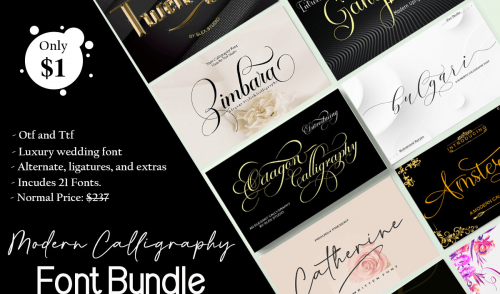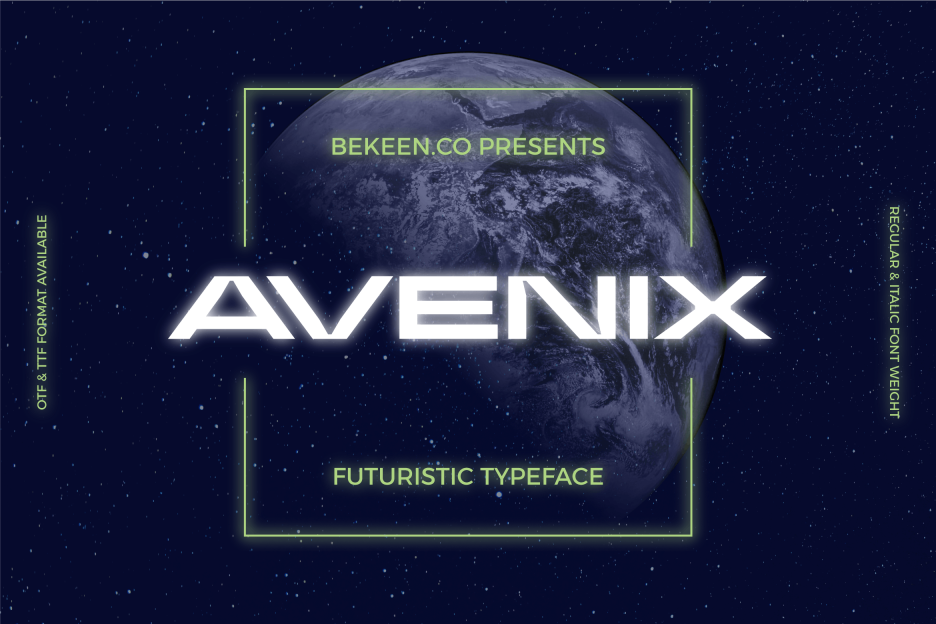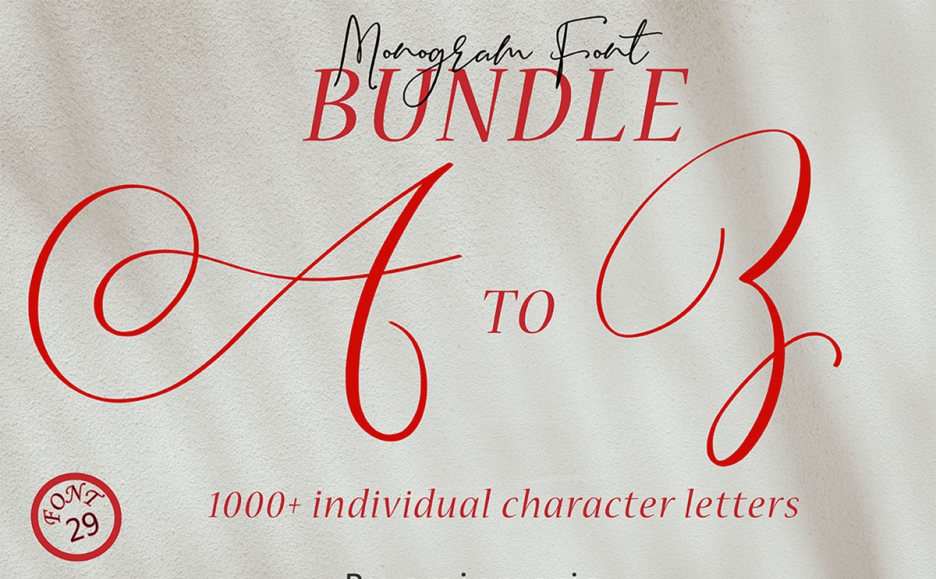
Hey there, creative soul! 👋 Are you ready to level up your typography game? We’ve just uncovered a goldmine of design magic in the BrushesPack Collection Part 154, and trust me, your projects are about to get a serious glow-up. From playful handwritten scripts to ultra-modern futuristic typefaces, this collection of 20 premium font bundles is pure artistic fuel. 🚀
Whether you’re designing wedding invitations, building a bold brand identity, or just want to add that “je ne sais quoi” to your social media graphics, these bundles are your new best friends. So grab a coffee ☕, get comfy, and let’s dive into the typography heaven that’s waiting for you! 🎨
Why Use These Font Bundles?
Typography is the heartbeat of any design. A single font can whisper elegance, shout boldness, or spark pure joy. With these carefully curated bundles, you don’t just get letters — you get the power to tell stories, evoke emotions, and make your work stand out in a noisy digital world. Plus, who doesn’t love having hundreds of professional fonts at their fingertips without breaking the bank? 💸✨
Top 20 Font Bundle Picks from Part 154
Hand-Lettered Font Bundle
If you love that raw, human touch in your designs, this bundle is pure gold. Featuring a mix of script, serif, and sans-serif styles, it’s like having a personal calligrapher in your pocket! 🖋️✨
Handwritten Script Font Bundle Vol
This volume is dripping with personality! Perfect for those “live, laugh, love” posters or cozy branding projects that need a friendly, approachable vibe. Comes in OTF and TTF formats so you can start designing immediately. 📝💕
The Barbie Bundle Font
Ready to channel your inner Barbie? This playful, bold, and elegant typeface is drenched in bubblegum fun! Whether it’s for party invites, girly branding, or just because you want to scream “I’m fabulous!” — this is it. 💖👑
Modern Calligraphy Font Bundle
Calligraphy meets the digital age — and it’s beautiful. These elegant script fonts will make your prints look like they were dipped in ink by a master calligrapher. Perfect for logos, wedding suites, and luxury branding. 🌸✨
My Magic Hand Crafted Font Bundle
This bundle is pure wizardry! 🧙♂️ With a mix of script, sans-serif, and decorative fonts, you’ll feel like a design wizard crafting magic with every letter. It’s quirky, charming, and super versatile.
Grayson Font Pack
Elegant serifs meet modern sans-serifs in this sophisticated pack. Grayson is your go-to for editorial design, high-end branding, and any project that needs a touch of class. 🕶️📰
Mega Script & Handwritten Fonts Bundle
Go big or go home! This mega collection is stuffed with elegant scripts and casual handwritten styles that bring warmth to any project. Say goodbye to boring fonts forever! 🎉🖊️
Lovely Font Bundle – 6 Premium Beauty Fonts
Beauty brands, this one’s for you! With six distinct premium fonts covering script, serif, and sans-serif styles, you’ll have the perfect look for skincare, makeup, or spa branding. 🌿💄
Swashy Font Bundle
Add some flair, darling! This bundle is all about those gorgeous swashes and decorative flourishes that make wedding invitations and certificates look absolutely regal. 👑✨
The Beloved Font Bundle
Every designer needs a bundle they can rely on — this is it. With serifs, sans-serifs, scripts, and display fonts, “Beloved” truly has something for every project. It’s like a warm hug for your typography library! 🤗💕
Mega Fonts Bundle
Size matters, especially when it comes to font variety! This giant bundle packs serif, sans-serif, script, and display fonts all crafted with precision. Endless possibilities, endless creativity. 🌟📚
Nacho-All Bundle
This isn’t just fonts — it’s a full digital asset party! 🎉 With high-res graphics, illustrations, and templates, this bundle is perfect for designers who want everything in one cheesy, delicious package.
Ligature Font Bundle
Ligatures are the secret sauce of beautiful typography, and this bundle is full of them! Whether serif, sans-serif, or script, these fonts connect letters in the most elegant way possible. 🧩🔥
Monograms Bundle From A To Z
Personalization is huge right now, and this A-to-Z monogram collection makes it a breeze! Perfect for custom gifts, wedding decor, and embroidery designs. Classic or playful — you choose! 🎁✂️
The Modern Font Bundle
Clean, contemporary, and ultra-chic. This bundle brings you the best of modern design with elegant serifs and bold sans-serifs. Ideal for tech startups, fashion brands, or minimalist projects. 📱🧊
Super Collection – New Bundle Best Seller – 82 Premium Fonts
Eighty-two premium fonts in one massive bundle?! Yes, please! 😱 This best-seller is an absolute steal, mixing serifs, sans-serifs, scripts, and display fonts for every design dream you can imagine.